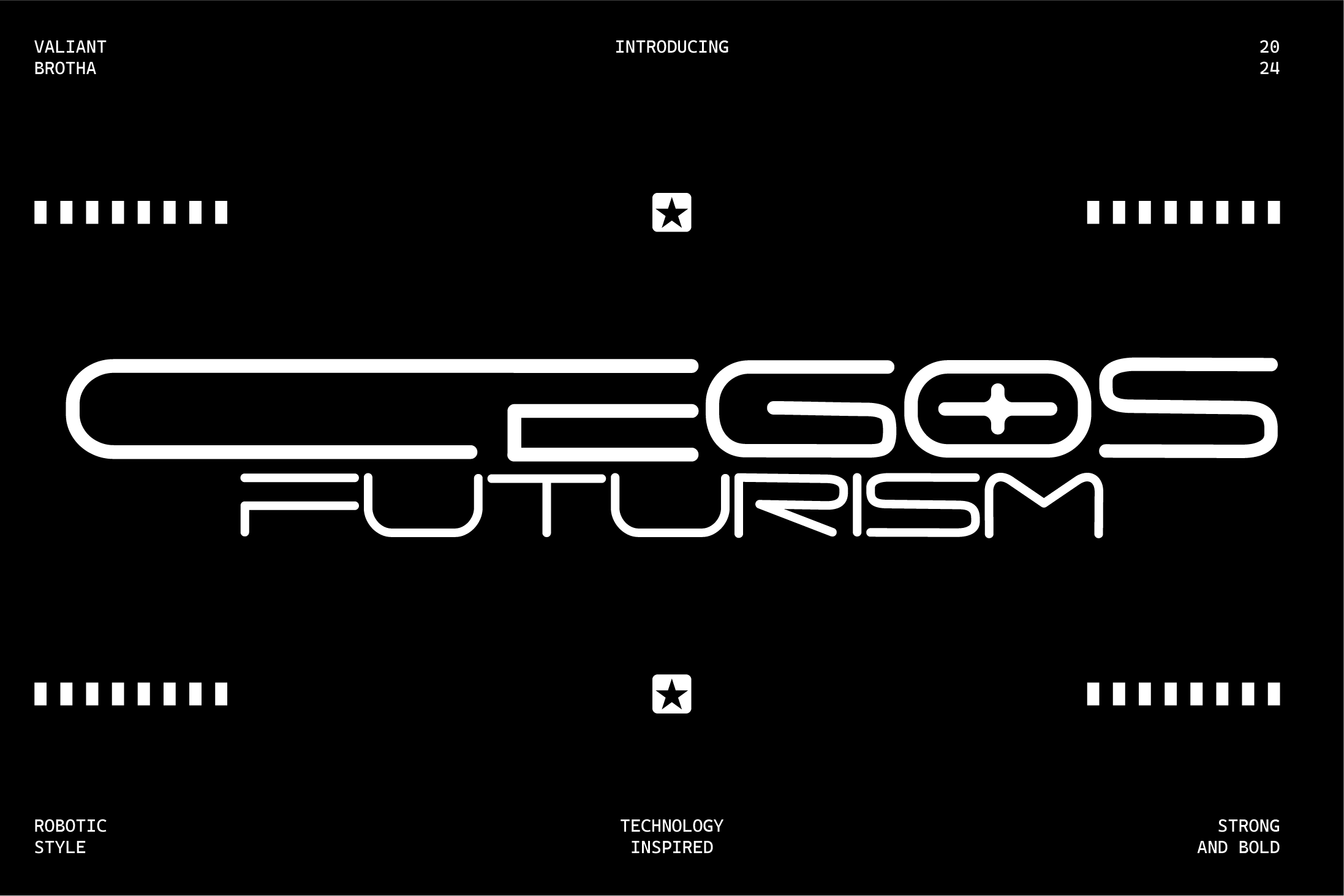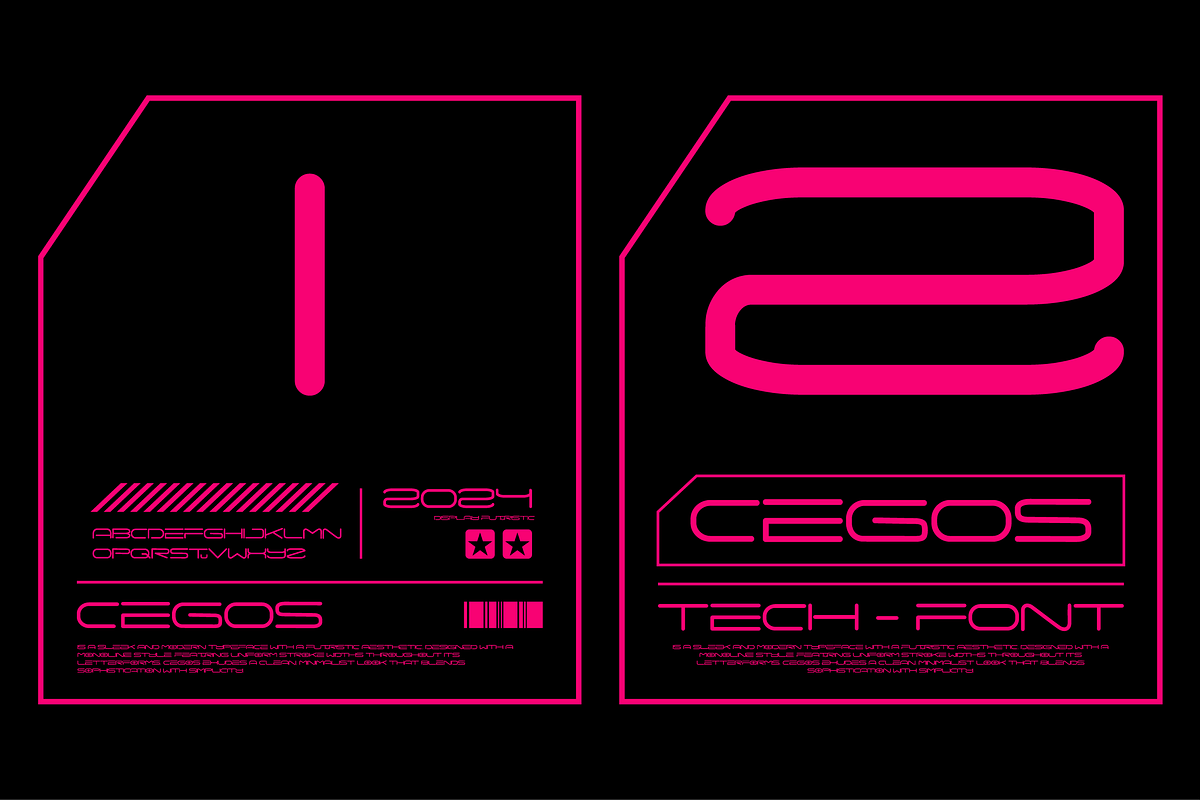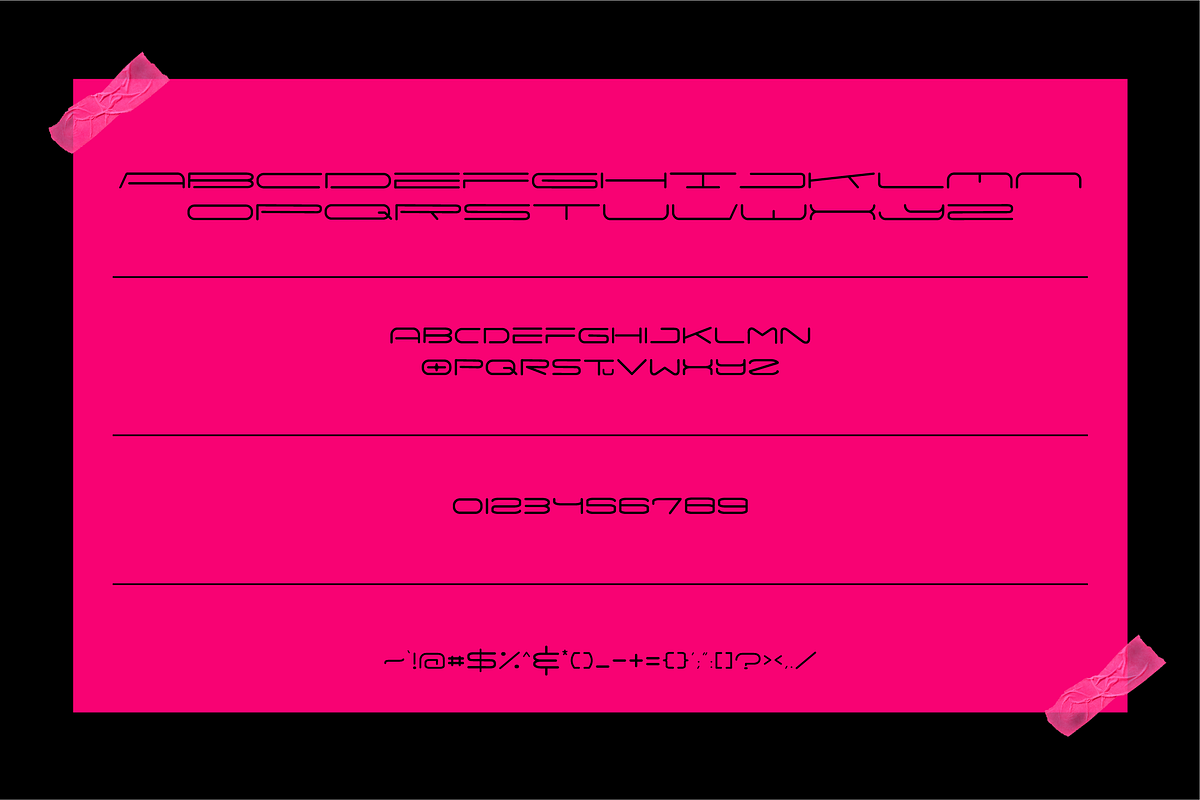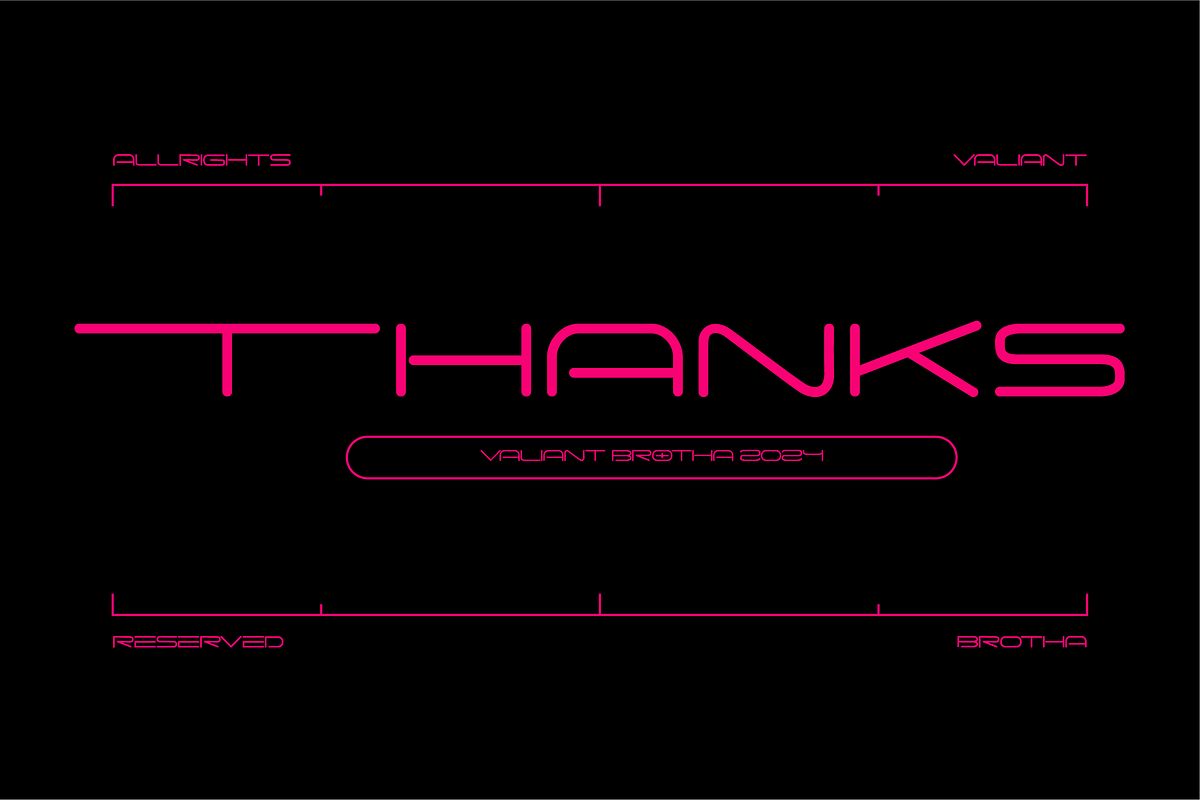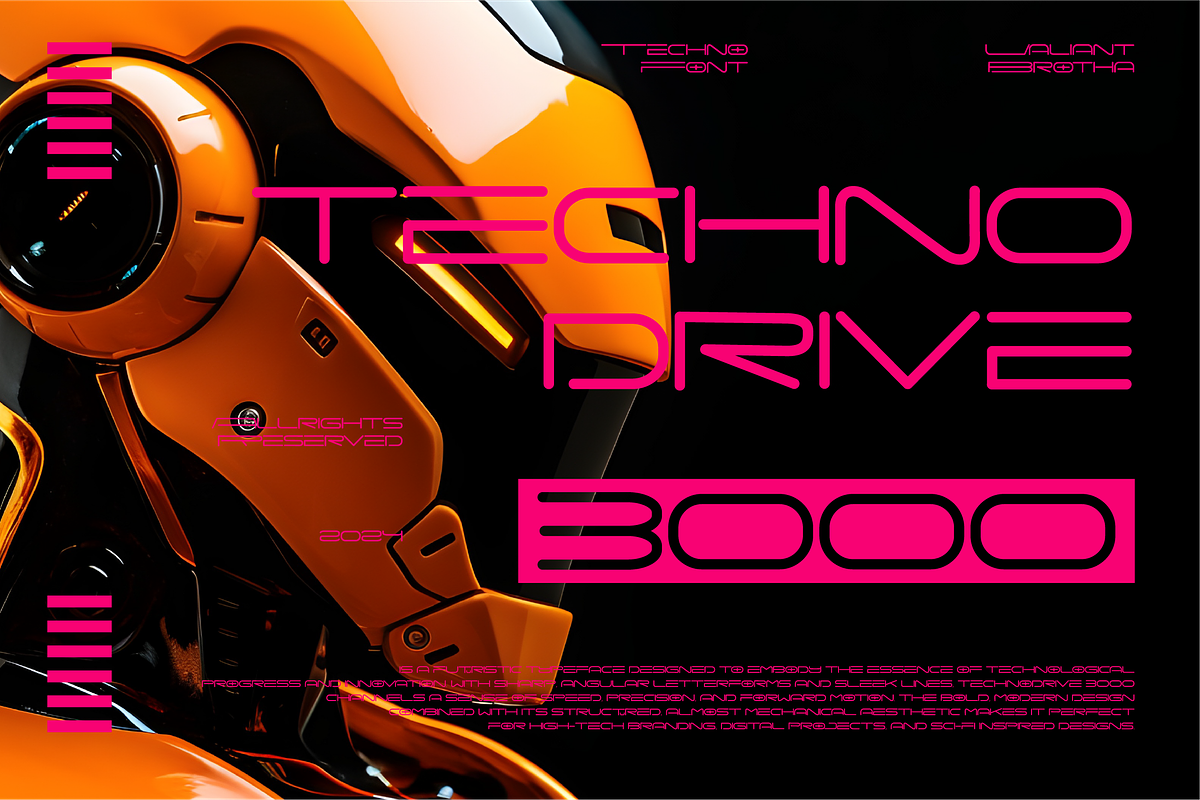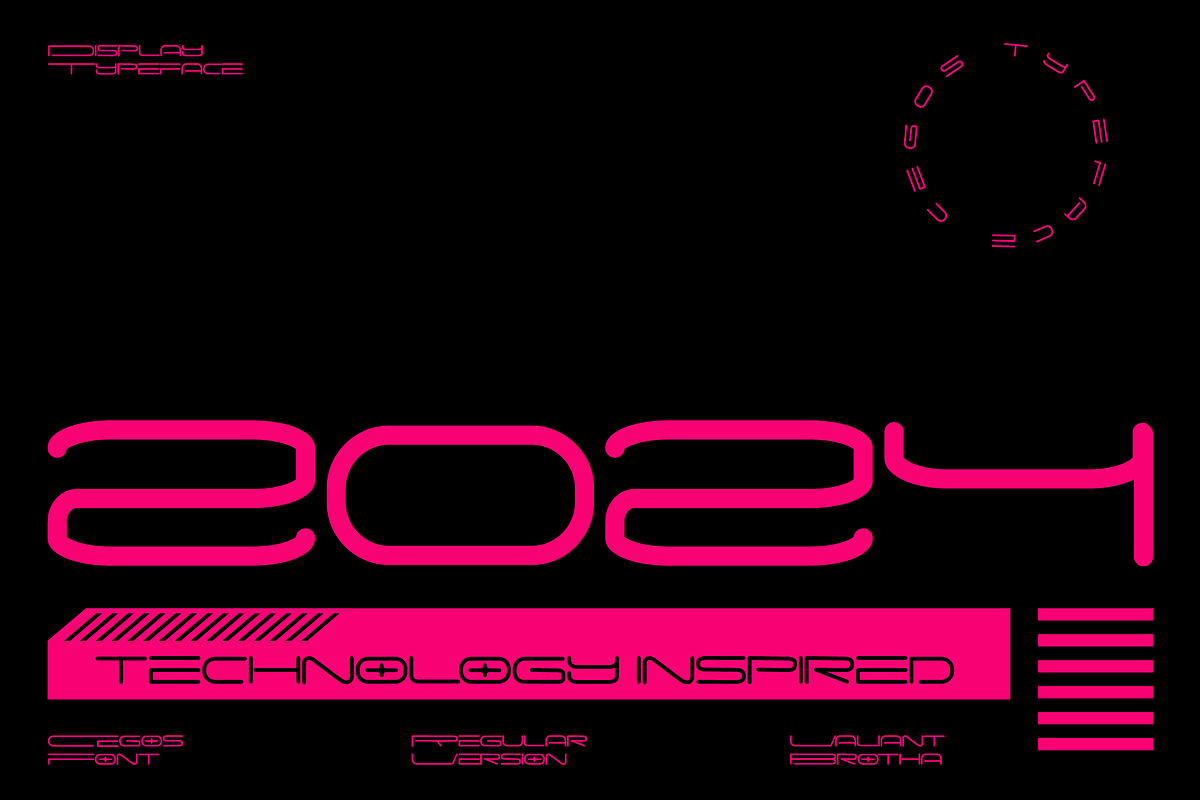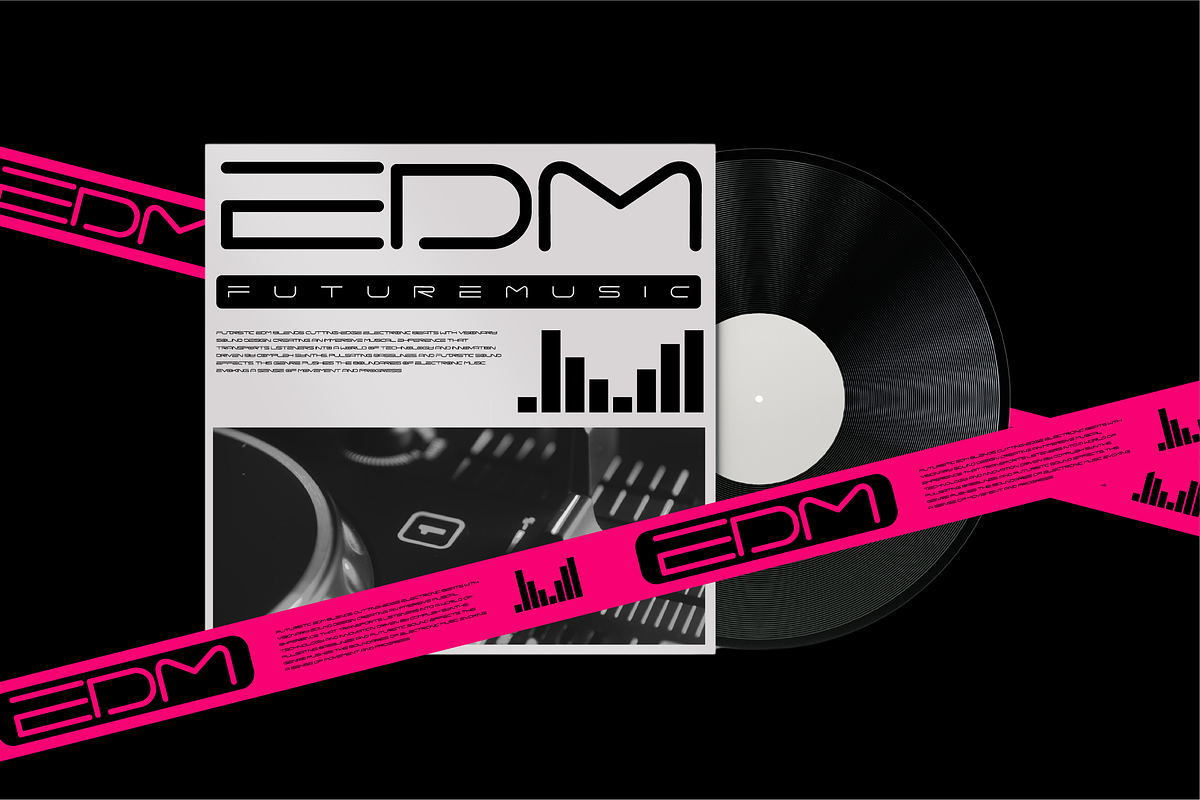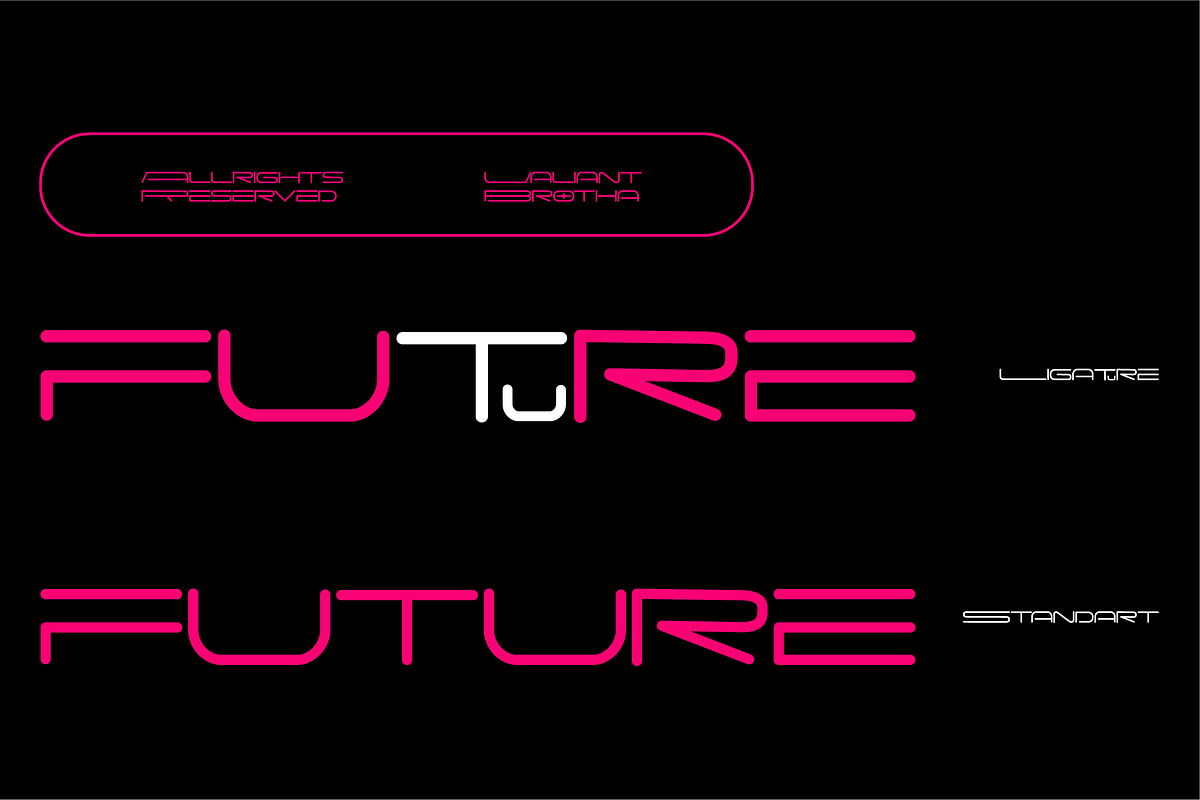
VB Cegos - Futuristic Font
Cegos is a futuristic and bold display font designed to captivate attention. With its sharp, sleek lines and techno-inspired curves, this typeface exudes modernity and innovation. Perfect for projects that demand a cutting-edge look, Cegos makes a statement whether used in logos, headlines, or digital interfaces. Its strong presence and high readability ensure that it stands out in any design, making it ideal for tech, sci-fi, or forward-thinking brands.